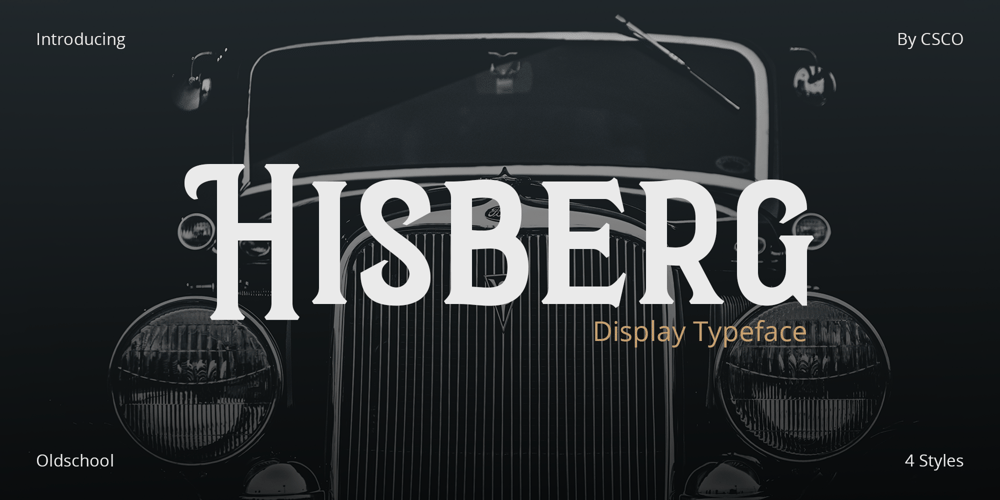
Hisberg Font Family was designed by Trio Nazzar Saputra, Wahyu Hadi Yuana and published by Craft Supply Co. Hisberg contains 4 styles and family package options. Cultural RichnessHisberg unfolds as a vintage serif font, deeply inspired by the wealth of past cultural richness. Each letter breathes historical elegance, enveloping designs in an aura of the past.Timeless AppealMoreover, Hisberg crafts a bridge between eras. It brings the nostalgic charm of yesteryears into modern design, ensuring a timeless aesthetic that captivates and endures.Artistic FlourishesAdditionally, this font features artistic flourishes. The subtle embellishments enhance its appeal, allowing for a presentation that is both sophisticated and compelling.